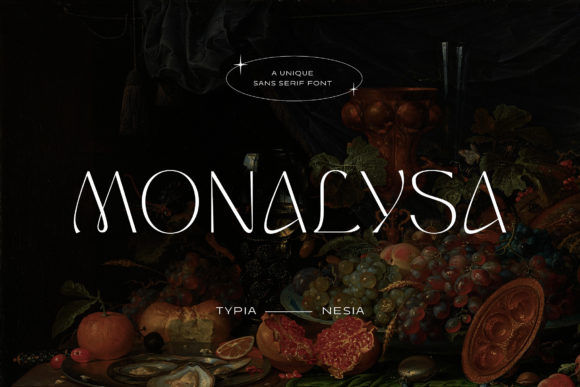
Behold the Monalysa Font, a sans serif masterpiece that radiates elegance and sophistication, meticulously crafted by Typia Nesia. This exquisite font family embodies timeless beauty, seamlessly blending classic calligraphic nuances with a refreshingly modern aesthetic. Prepare to be captivated as Monalysa elevates your creative endeavors to unprecedented heights, leaving an unforgettable impression on all who encounter it.
Immerse yourself in a world of luxury and refinement as you explore the endless possibilities of Monalysa. Designed with meticulous attention to detail, each character exudes an air of grace and opulence, echoing the allure of a bygone era while embracing the vibrancy of the present. Whether you're a discerning designer seeking to elevate your branding or an aspiring artist yearning to infuse your creations with a touch of timeless elegance, Monalysa is your perfect companion.
Unleash your imagination and embark on a creative journey like no other. With Monalysa as your trusted ally, transform ordinary designs into extraordinary masterpieces. Its inherent versatility lends itself effortlessly to a myriad of applications, from captivating logos and eye-catching headlines to stunning invitations and enchanting social media posts. Experience the transformative power of Monalysa as it effortlessly enhances the visual appeal of your projects, leaving a lasting impact that resonates with your audience.
Indulge in the sheer joy of using a font that feels like an extension of your creative spirit. Monalysa's intuitive design ensures effortless flow and seamless integration into your design workflow. Say goodbye to frustration and hello to a newfound sense of creative liberation as you glide through your projects with ease, allowing your imagination to soar without boundaries.
Embrace the Monalysa Font today and unlock a world of creative possibilities. Let its timeless allure captivate your audience, leaving them spellbound by the sheer beauty and sophistication of your designs. Elevate your brand, ignite your passion, and create a lasting legacy with Monalysa, the ultimate font for those who dare to dream big and leave an indelible mark on the world of design.